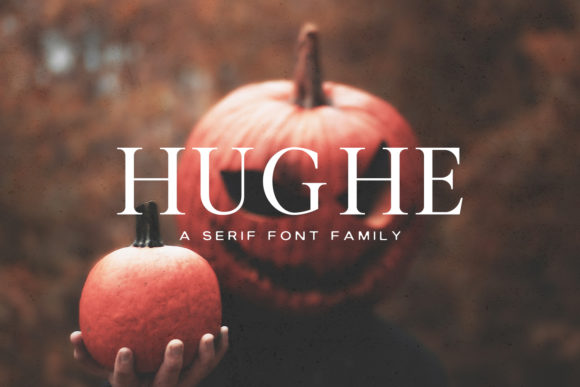
Hughe Family Font
Discover the Allure of Timeless Elegance: Introducing the Hughe Family Font Collection
In the realm of typography, the Hughe Family Font Collection stands out as a beacon of excellence, captivating hearts with its timeless elegance and versatile charm. This meticulously crafted serif family, presented by the renowned Creative Tacos, is a symphony of five weights—regular, light, round, smooth, and bold—each a masterpiece in its own right. With its sweeping curves, delicate flourishes, and unwavering consistency, the Hughe Family Font Collection invites you to elevate your creative endeavors to new heights.
Unleash Your Creative Genius
Whether you're a seasoned designer or just starting your artistic journey, the Hughe Family Font Collection is your ultimate creative companion. Its versatility knows no bounds, adapting seamlessly to a myriad of design projects. Craft captivating flyers, posters, and banners that leave a lasting impression. Create illustrations that transport viewers to enchanting worlds. Design presentations that command attention and inspire action. Forge logos that embody your brand's essence. The possibilities are endless, limited only by your imagination.
A Font Family Steeped in History and Beauty
The Hughe Family Font Collection draws inspiration from the rich tapestry of history, blending classical aesthetics with a modern sensibility. Its serifs, reminiscent of ancient manuscripts, evoke a sense of tradition and sophistication. Yet, the fonts' clean lines and contemporary touches ensure they remain relevant and captivating in the digital age. With the Hughe Family Font Collection, you can create designs that resonate with audiences across generations.
Experience the Magic of Seamless Versatility
From delicate wedding invitations to bold advertising campaigns, from elegant book covers to whimsical social media posts, the Hughe Family Font Collection effortlessly adapts to any design challenge. Its diverse range of weights allows you to convey a spectrum of emotions and messages. Create soft, romantic appeals with the lighter weights. Make a statement with the bolder weights, commanding attention and leaving an unforgettable mark. The Hughe Family Font Collection is your ultimate tool for crafting designs that connect with audiences on a profound level.
Embark on a Creative Odyssey with the Hughe Family Font Collection
With the Hughe Family Font Collection at your fingertips, you have the power to transform your creative visions into tangible realities. Let your imagination soar as you explore the endless possibilities this font family offers. Discover the joy of seamless versatility, the allure of timeless elegance, and the magic of captivating designs. Embrace the Hughe Family Font Collection today and embark on a creative odyssey that will leave you breathless.